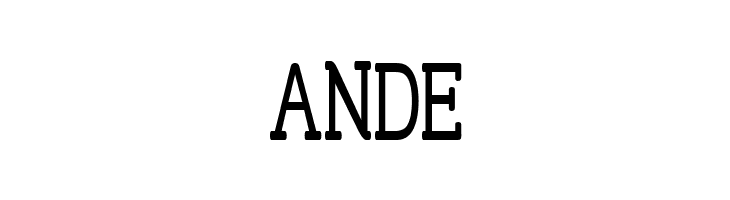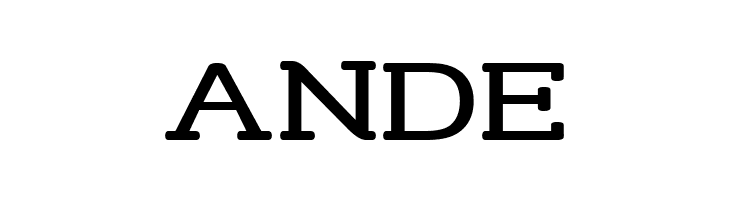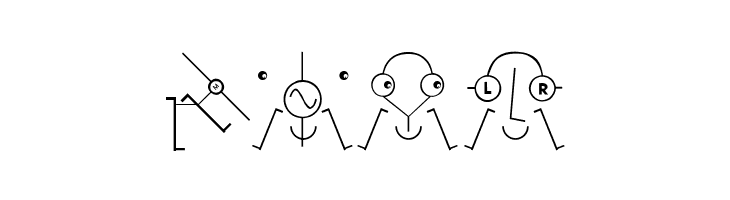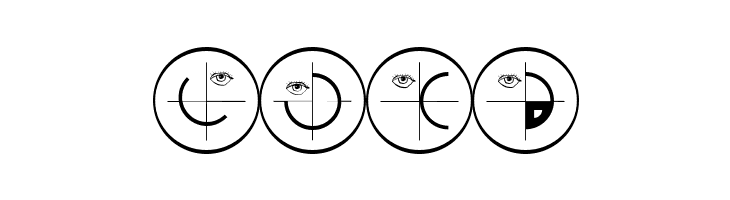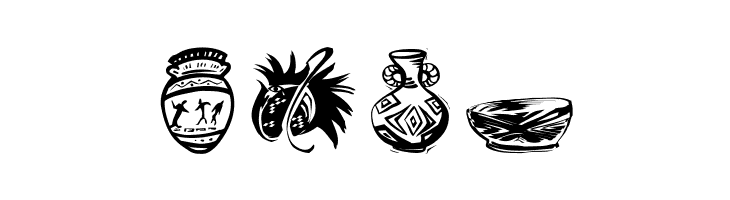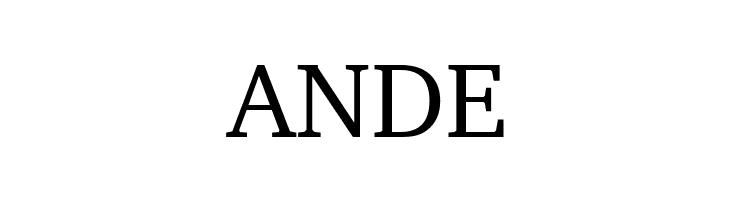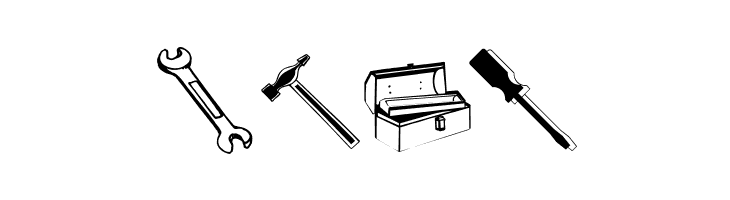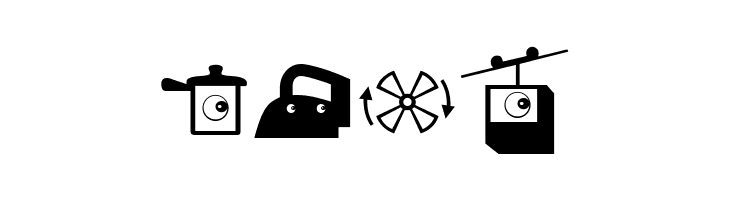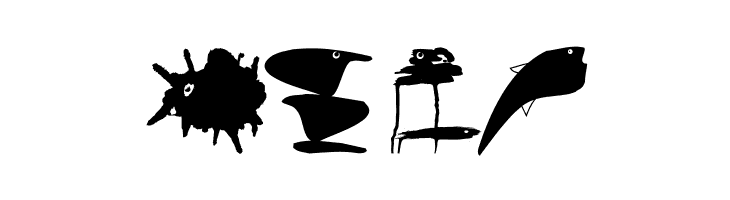
A bold, condensed slab serif font with a modern and structured design.
A bold slab serif font with strong serifs and uniform strokes.
A whimsical, electronic-themed decorative font with circuit-like characters.
The image displays abstract circular designs, not a font.
A decorative symbol font with artifact and tribal-inspired pictograms.
A tool-themed pictogram font with detailed illustrations of hardware and equipment.
A bold pictogram font with household and geometric icons.
An abstract, brushstroke-inspired font with a bold and chaotic style.
A modern sans-serif font with a clean and balanced design.
A bold serif font with strong strokes and prominent serifs, ideal for impactful text.
Geometric sans-serif font optimized for clarity and legibility.
A modern, geometric font with bold, consistent strokes and a sleek design.
A flowing, cursive script representing ancient Egyptian hieratic numerals.
A cross-stitch patterned font with a handcrafted, geometric style.
A bold, modern font with clean lines and a strong presence.
A futuristic, geometric font with rounded edges and consistent stroke width.
A bold, decorative font with a perforated, industrial look.
A decorative font with a cross-stitch pattern, resembling traditional embroidery.
Functional, icon-based font for wash care and laundry symbols.
A modern, clean sans-serif font with uniform strokes and slightly condensed width.
A bold, high-contrast font with a modern yet classic style.